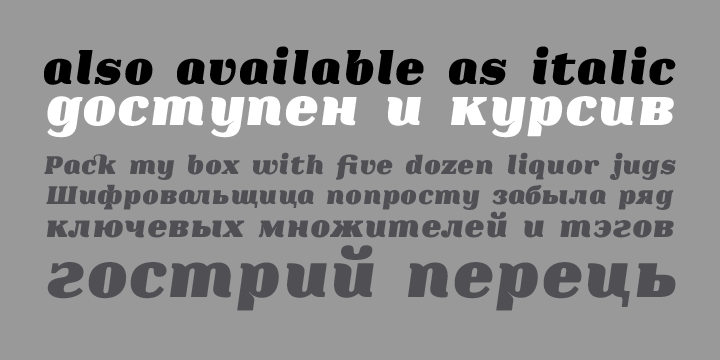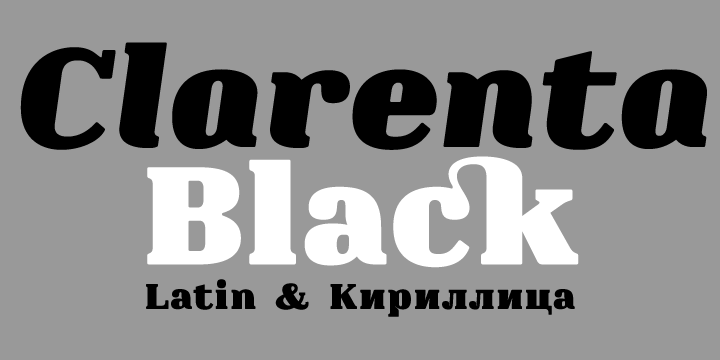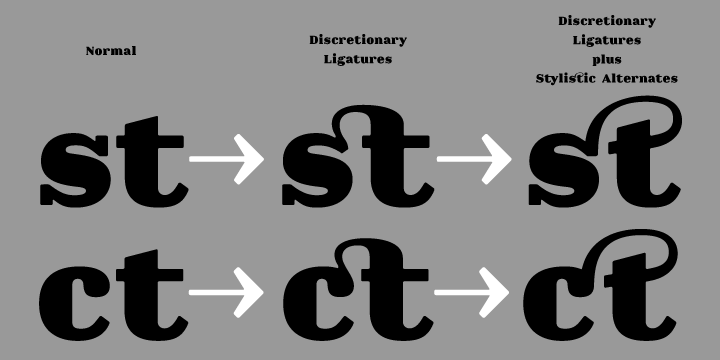
Clarenta 4F is a display serif font family. This typeface has four styles and was published by 4th february.
Clarenta 4F a display typeface inspired by Clarendon.